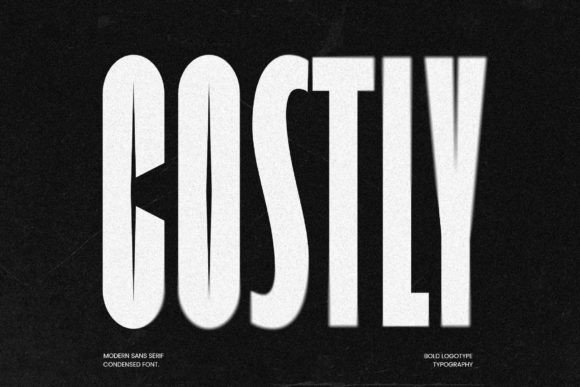
Introducing Costly Font: The Contemporary Sans-Serif with a Playful Twist
In the world of typography, fonts play a crucial role in conveying the tone and personality of a design. With thousands of fonts available, finding the perfect one that adds a unique touch to your project can be overwhelming. However, if you’re looking for a font that combines modernity with a dash of whimsy, look no further than Costly Font, also known as Genky. This contemporary and eccentric sans-serif font is designed to add a playful twist to your designs, making it perfect for projects that require a touch of character.
The Unique Features of Costly Font
Costly Font, or Genky, boasts a range of unique features that set it apart from traditional fonts. Its clean lines and bold strokes make it highly legible, ensuring that your text is clear and easy to read. However, it’s the quirky details and charming irregularities that give Genky its distinctive character. Each letterform has been carefully crafted to add a touch of whimsy to your designs, making it perfect for projects that require a bit of personality.
The Benefits of Using Costly Font
So, why choose Costly Font for your next project? Here are just a few benefits of using this versatile and modern sans-serif font:
- Improved Legibility: Genky’s clean lines and bold strokes make it easy to read, even at small font sizes.
- Unique Character: The quirky details and irregularities in Genky’s letterforms add a touch of personality to your designs.
- Versatility: Genky is perfect for a range of design applications, from digital projects to print materials.
- Modern Flair: Genky’s contemporary design ensures that your projects look modern and up-to-date.
How to Use Costly Font in Your Designs
Using Costly Font in your designs is easy. Here are a few tips to get you started:
- Pair Genky with Other Fonts: Genky pairs well with a range of fonts, from traditional serif fonts to modern sans-serifs.
- Experiment with Font Sizes: Genky is legible at a range of font sizes, making it perfect for headlines, body copy, and more.
- Play with Color: Genky’s bold strokes and clean lines make it perfect for use with a range of colors and design styles.
Costly Font in Digital Design
In digital design, fonts play a crucial role in creating a user-friendly and engaging experience. Genky is perfect for digital projects, from websites and mobile apps to social media graphics and more. Its clean lines and bold strokes make it easy to read on a range of devices, while its quirky details add a touch of personality to your designs.
Costly Font in Print Design
Genky is also perfect for print design applications, from brochures and flyers to posters and more. Its bold strokes and clean lines make it easy to read, even at small font sizes, while its quirky details add a touch of whimsy to your designs.
In conclusion, Costly Font, or Genky, is a contemporary and eccentric sans-serif font that’s perfect for adding a playful twist to your designs. With its unique letterforms, charming irregularities, and clean lines, Genky is perfect for a range of design applications, from digital projects to print materials. Whether you’re looking to add a touch of whimsy to your designs or simply want a modern and legible font, Genky is the perfect choice.
- What is Costly Font?
- Costly Font, also known as Genky, is a contemporary and eccentric sans-serif font.
- What are the benefits of using Costly Font?
- The benefits of using Costly Font include improved legibility, unique character, versatility, and a modern flair.
- Can I use Costly Font in digital design?
- Yes, Costly Font is perfect for digital design applications, from websites and mobile apps to social media graphics and more.
- Can I use Costly Font in print design?
- Yes, Costly Font is also perfect for print design applications, from brochures and flyers to posters and more.